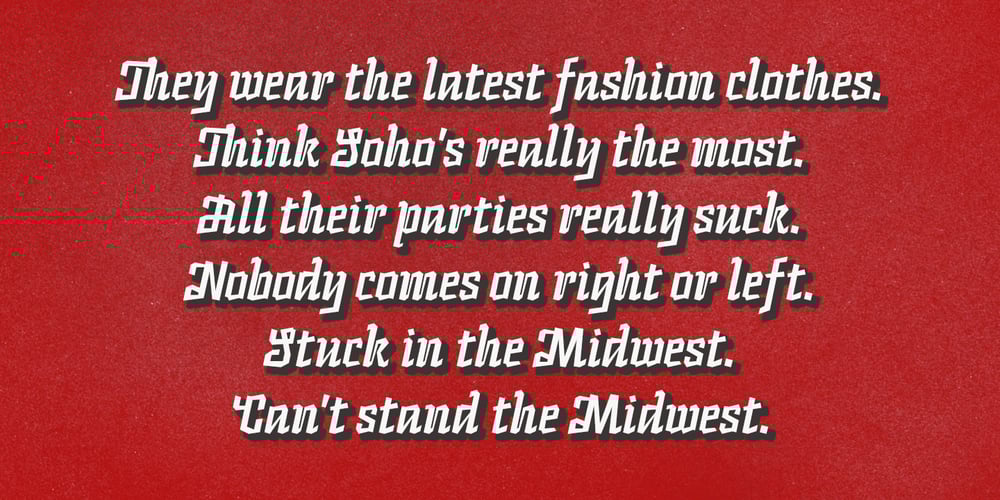
Lordela Font Family was designed by Rubén Prol and published by Rubén Prol. Lordela contains 1 styles and family package options. Lordela started with a custom lettering logo for a local tech company, finally rejected. It takes some inspiration from the copperplate calligraphy writing and the blackletter alphabets. Entirely designed with straight lines.